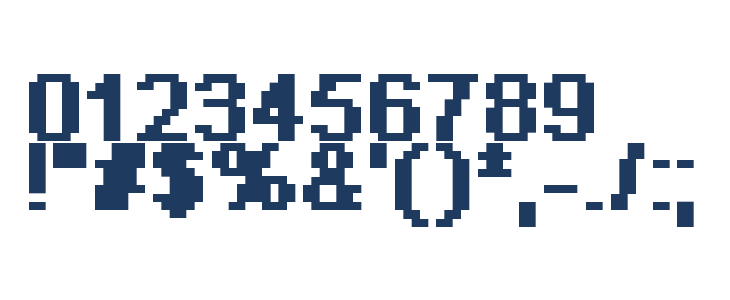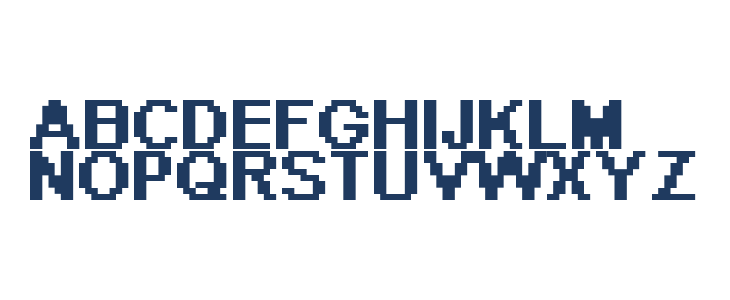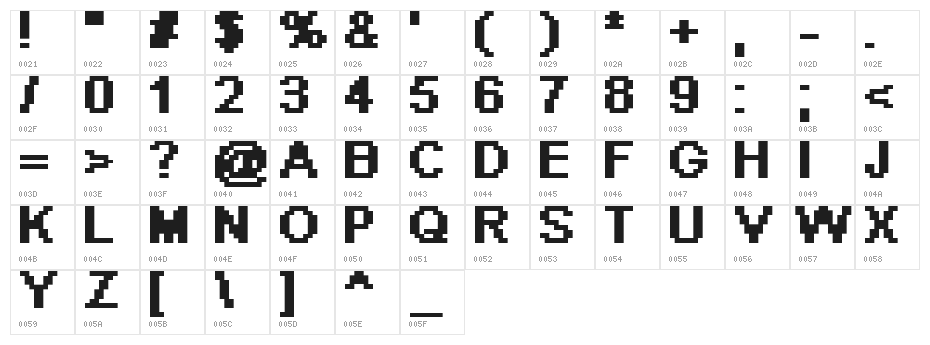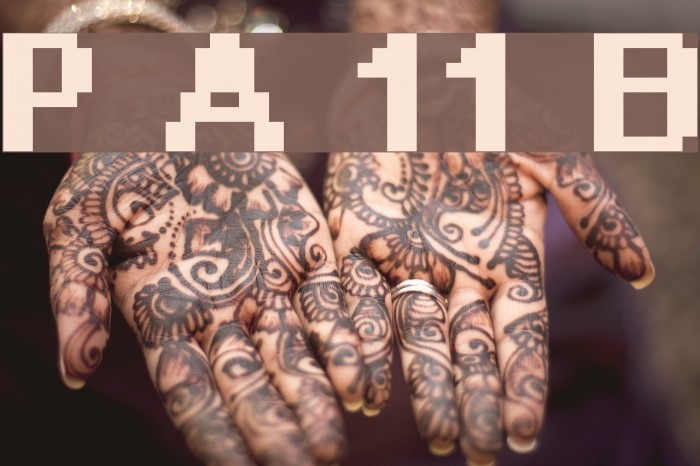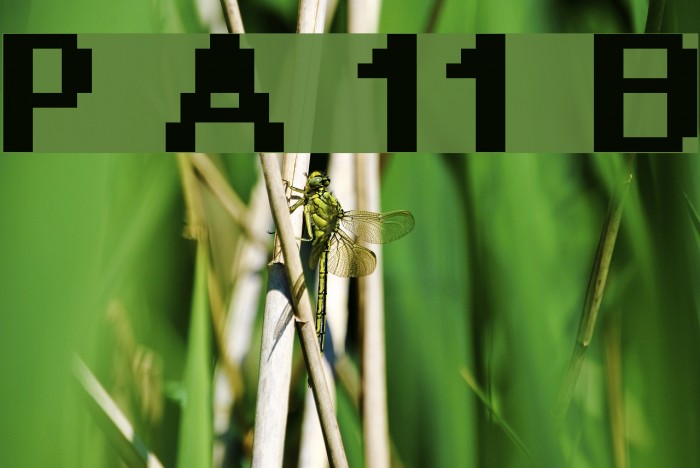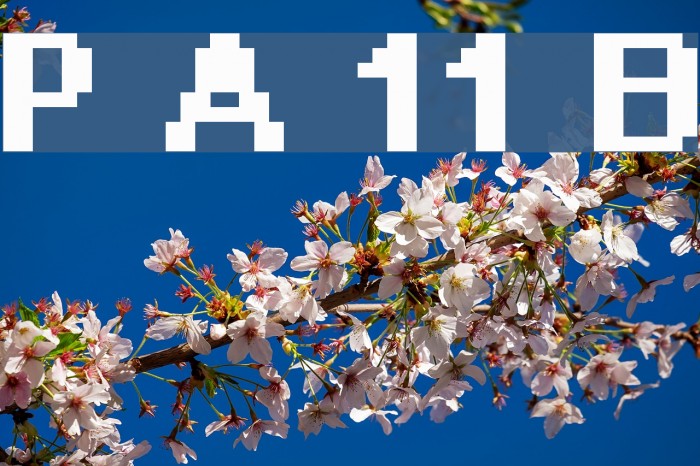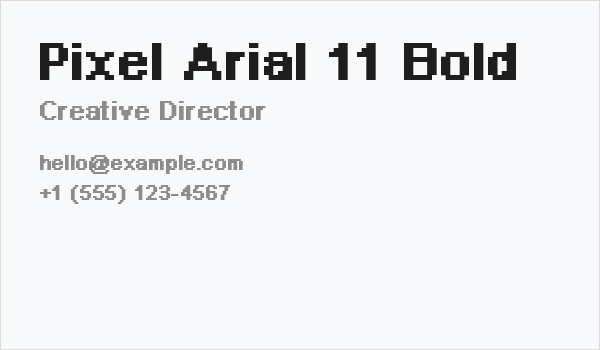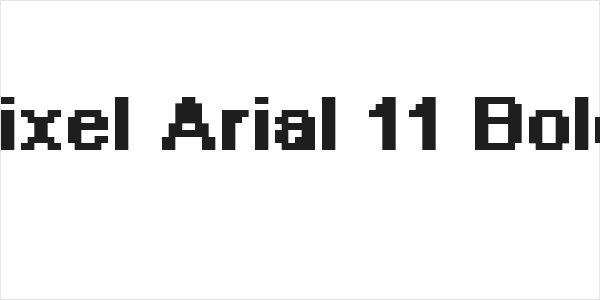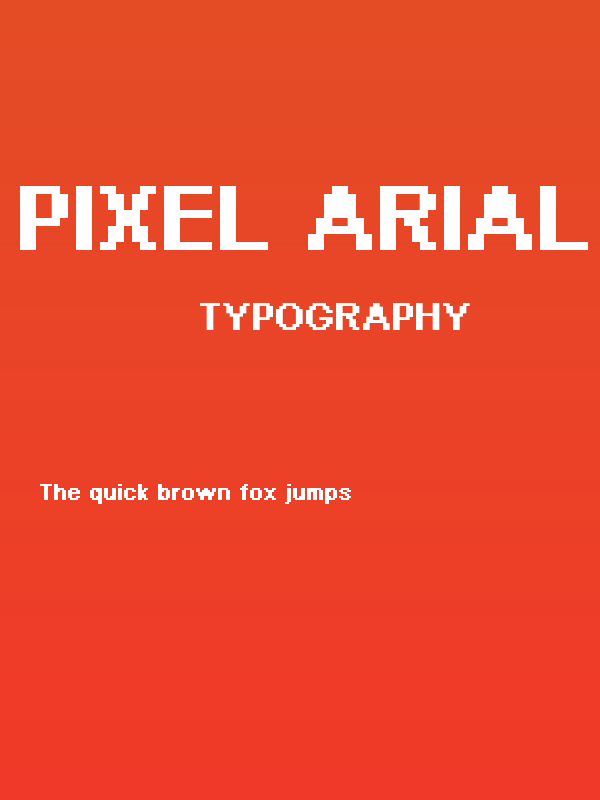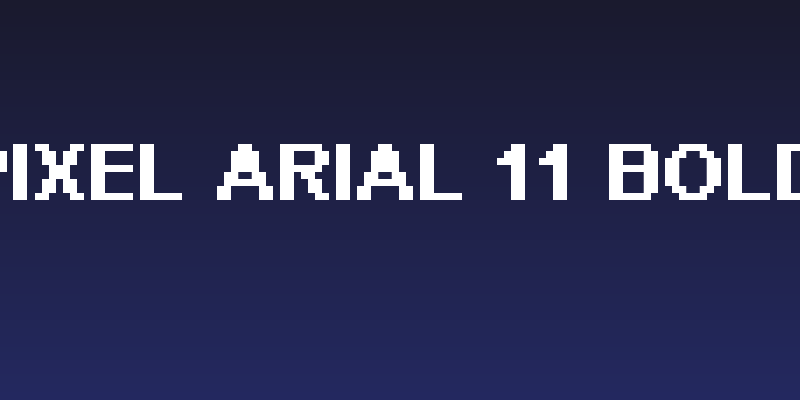
Pixel Arial 11 Bold Font
Pixel Arial 11 Bold Description
This font features a bold, pixelated style reminiscent of early digital and video game typography. Each character is constructed with a blocky, grid-like appearance, giving it a distinctly retro and digital aesthetic. The uppercase and lowercase letters maintain a consistent height, with the uppercase being slightly more pronounced. Numbers and special characters follow the same pixelated design, ensuring uniformity across all glyphs. This font is ideal for projects that aim to evoke nostalgia or a tech-inspired look.